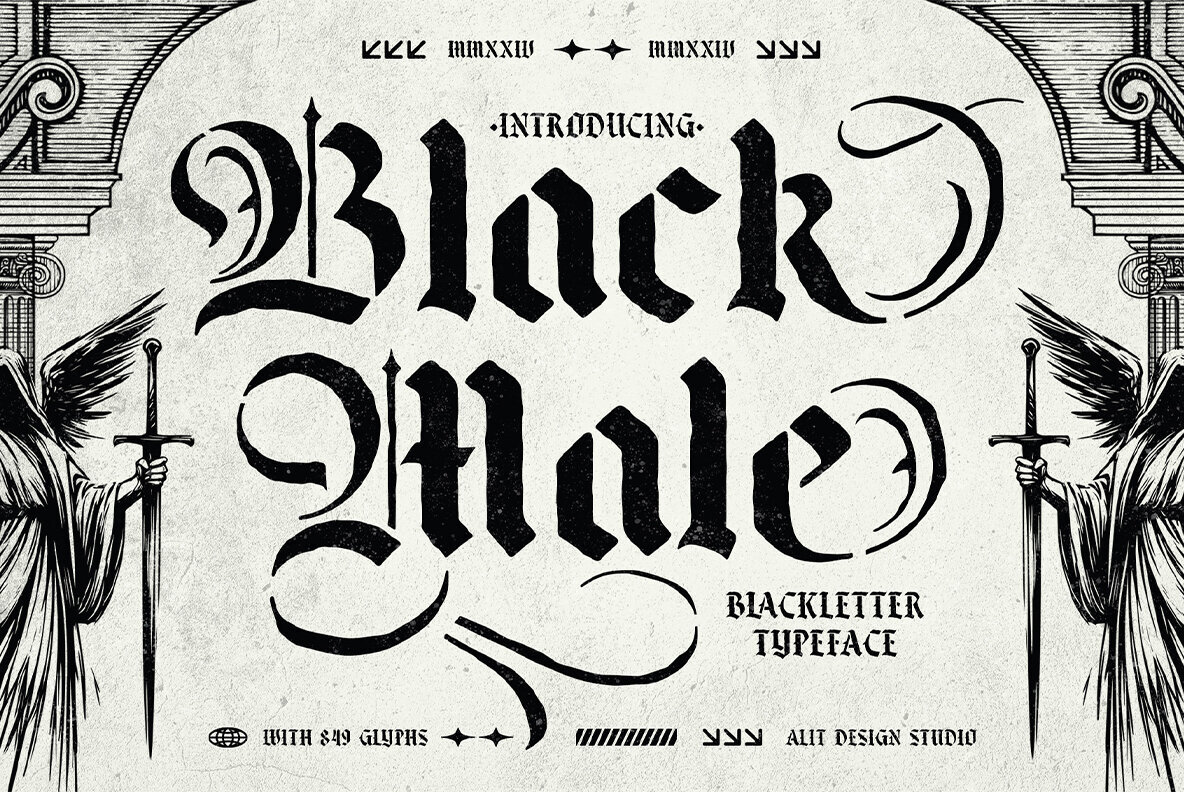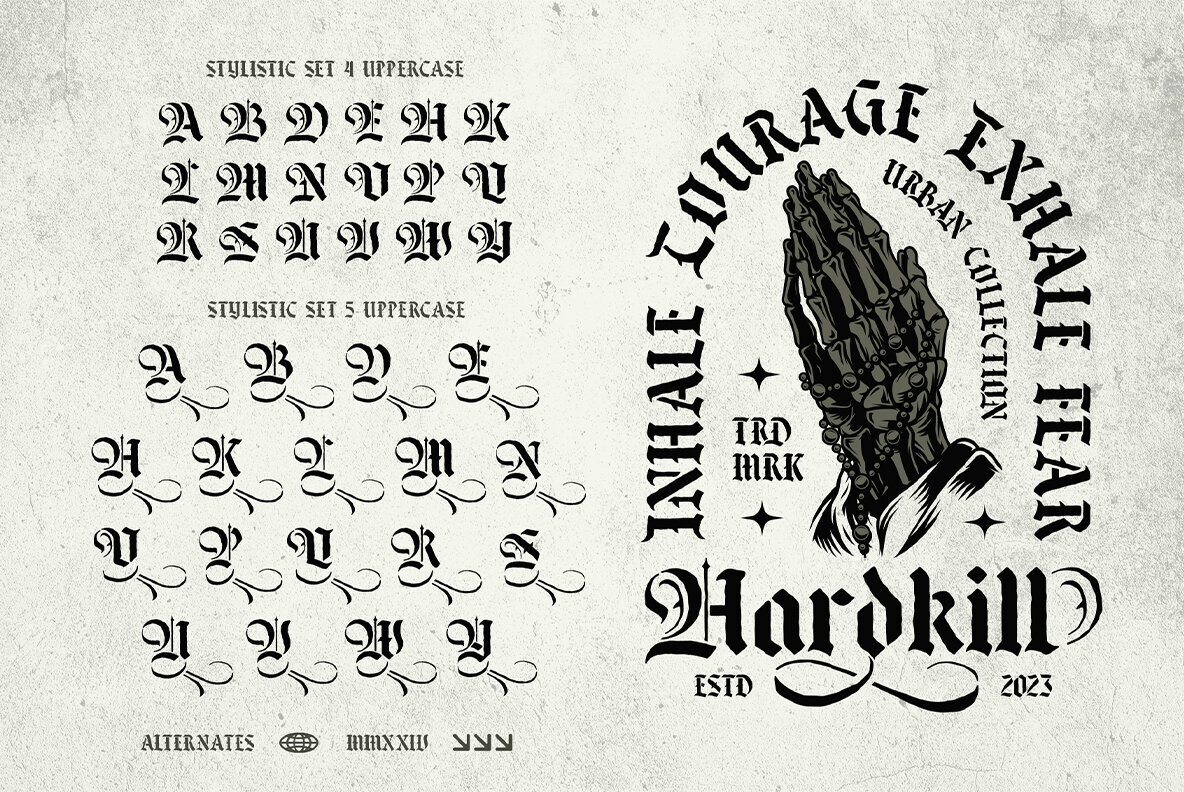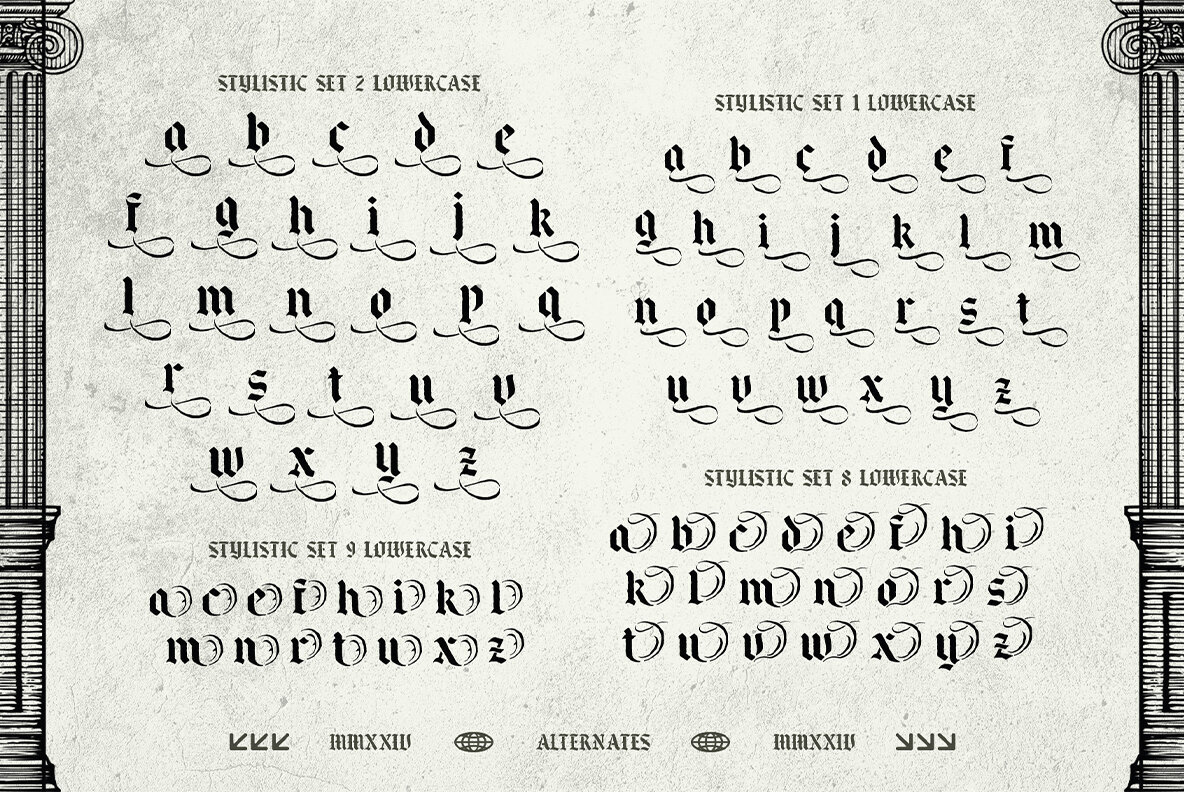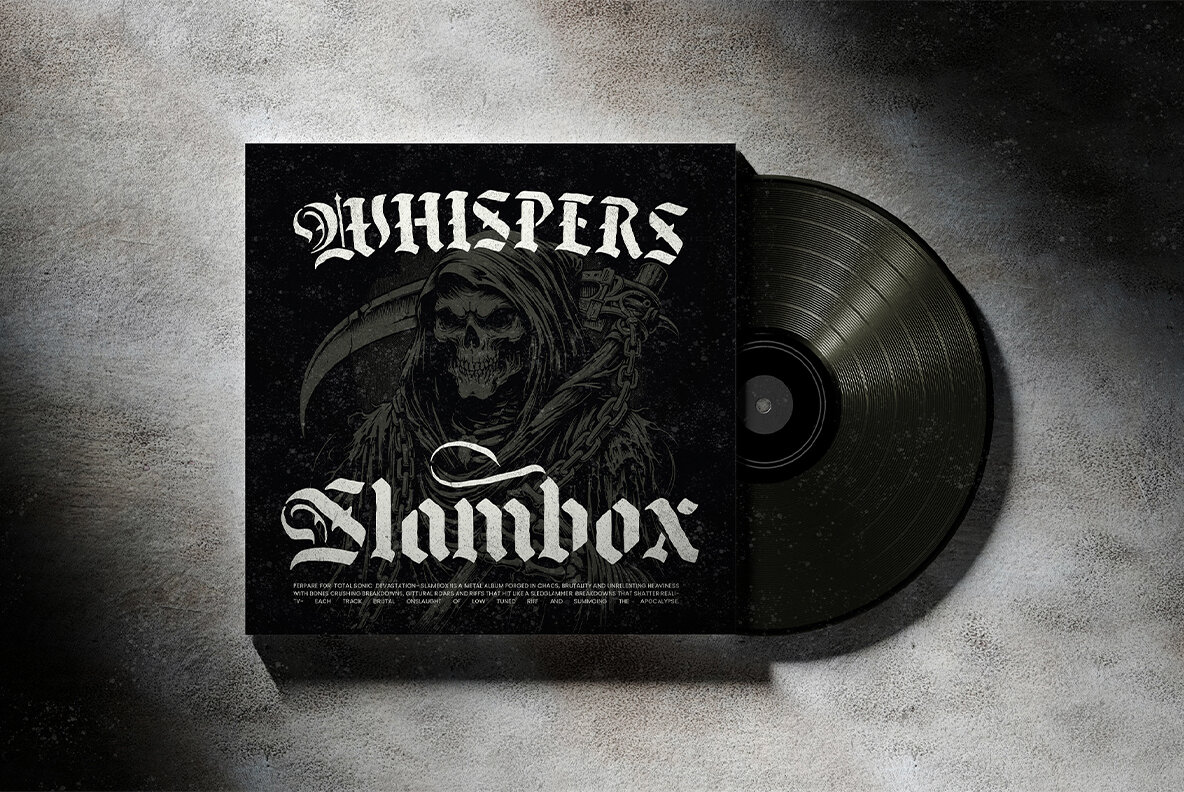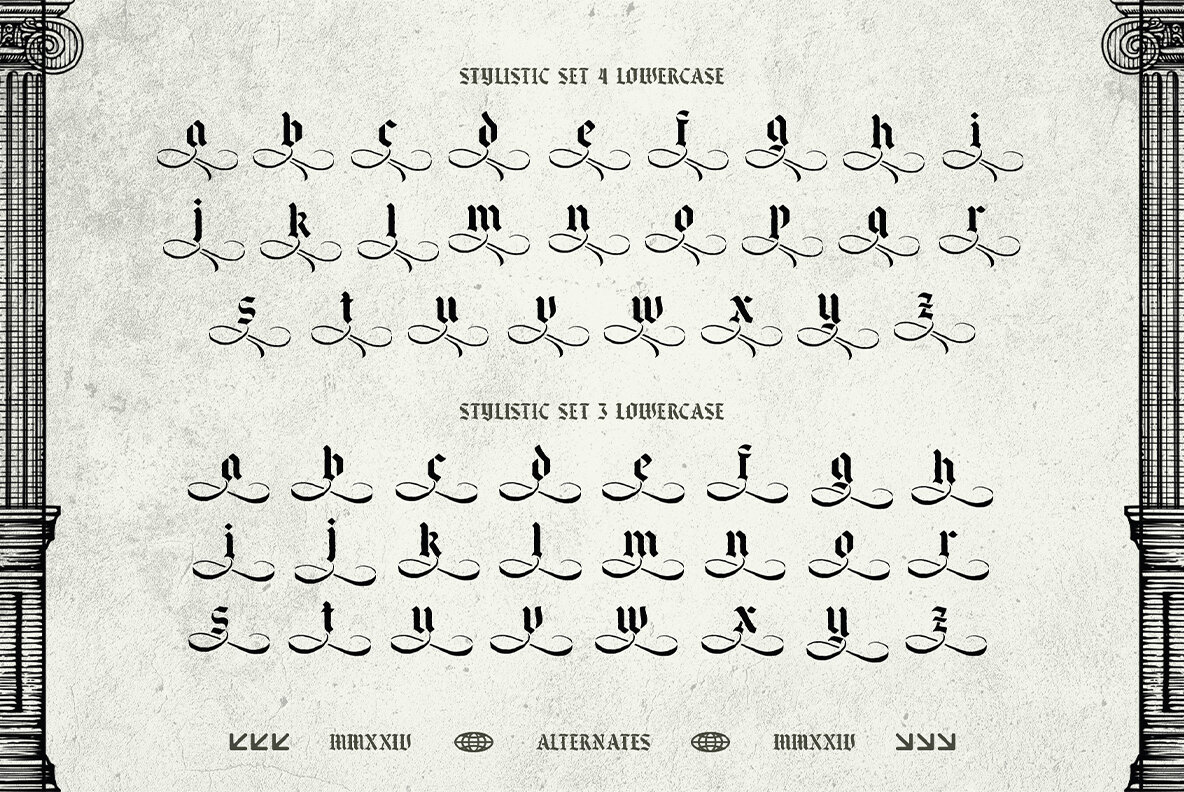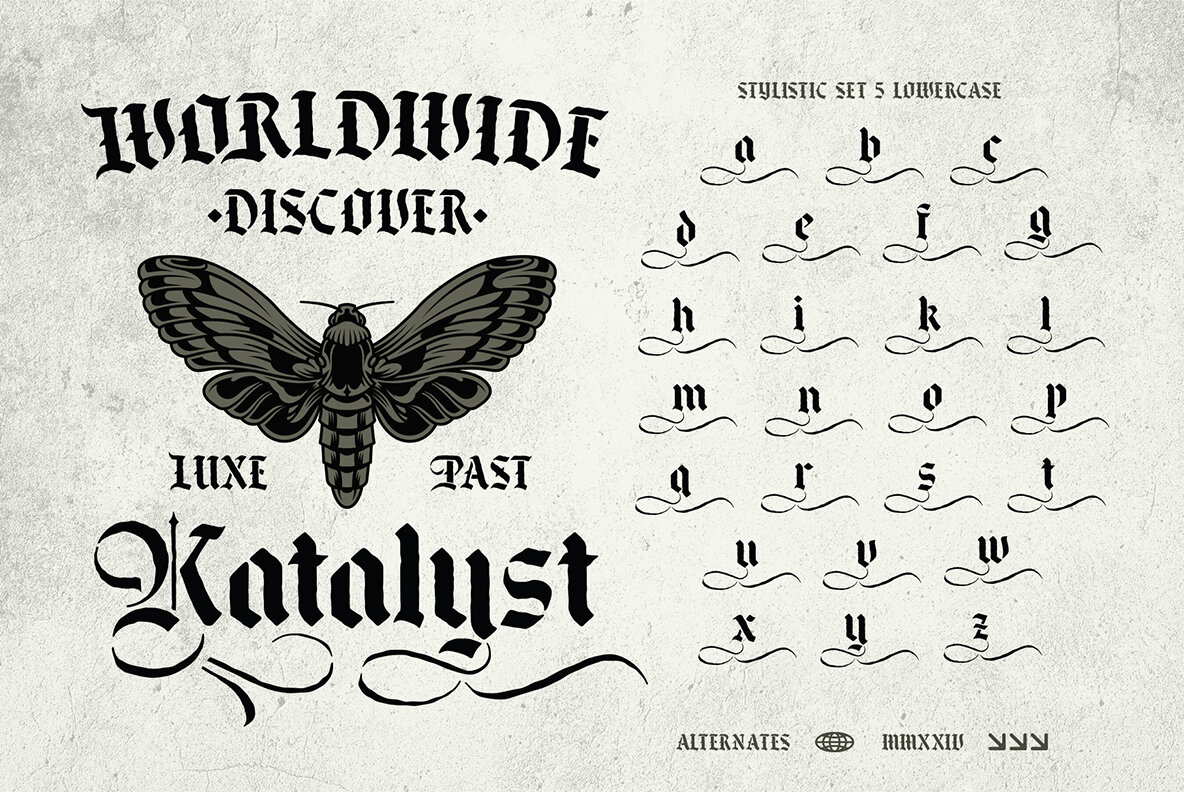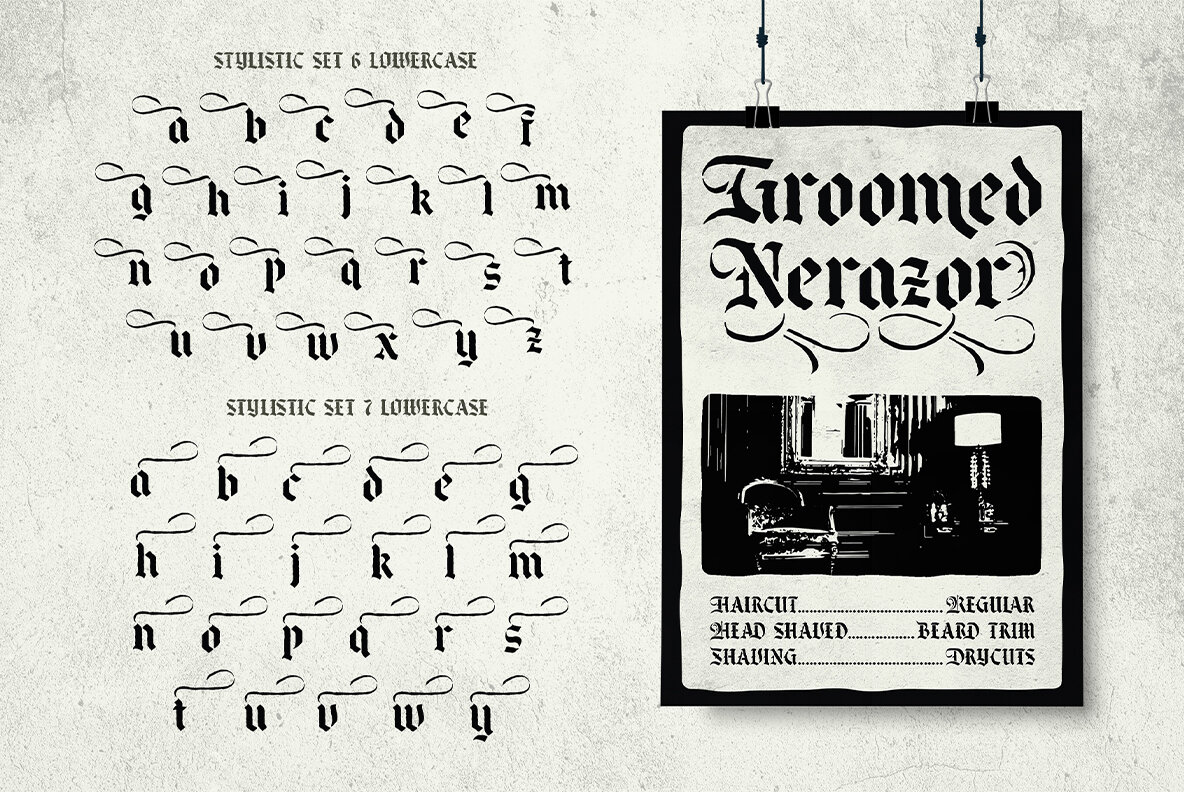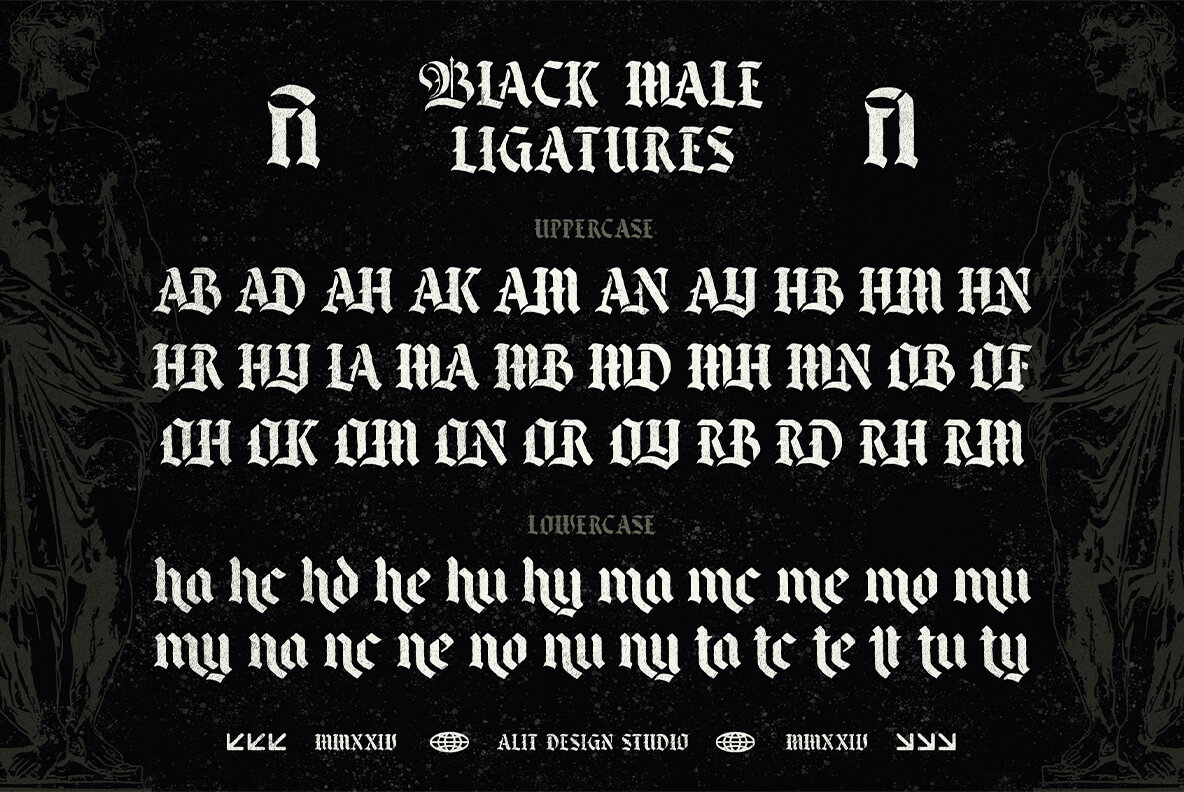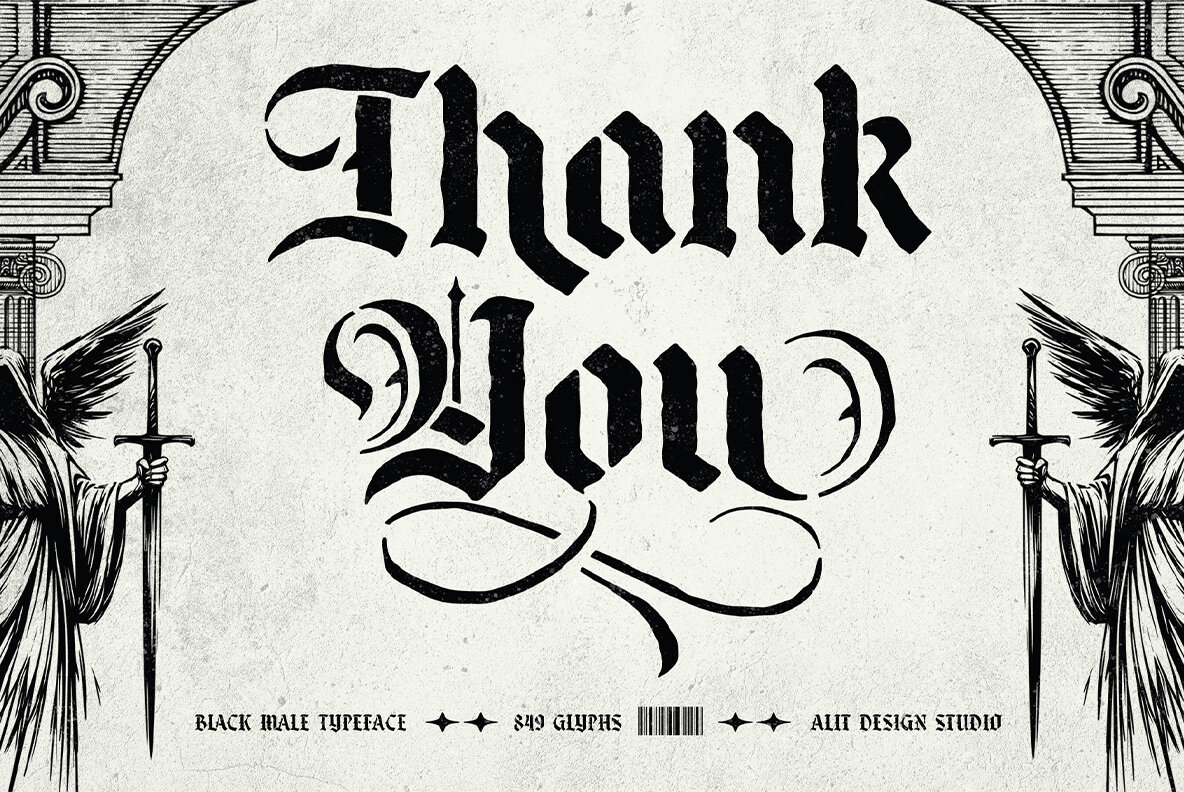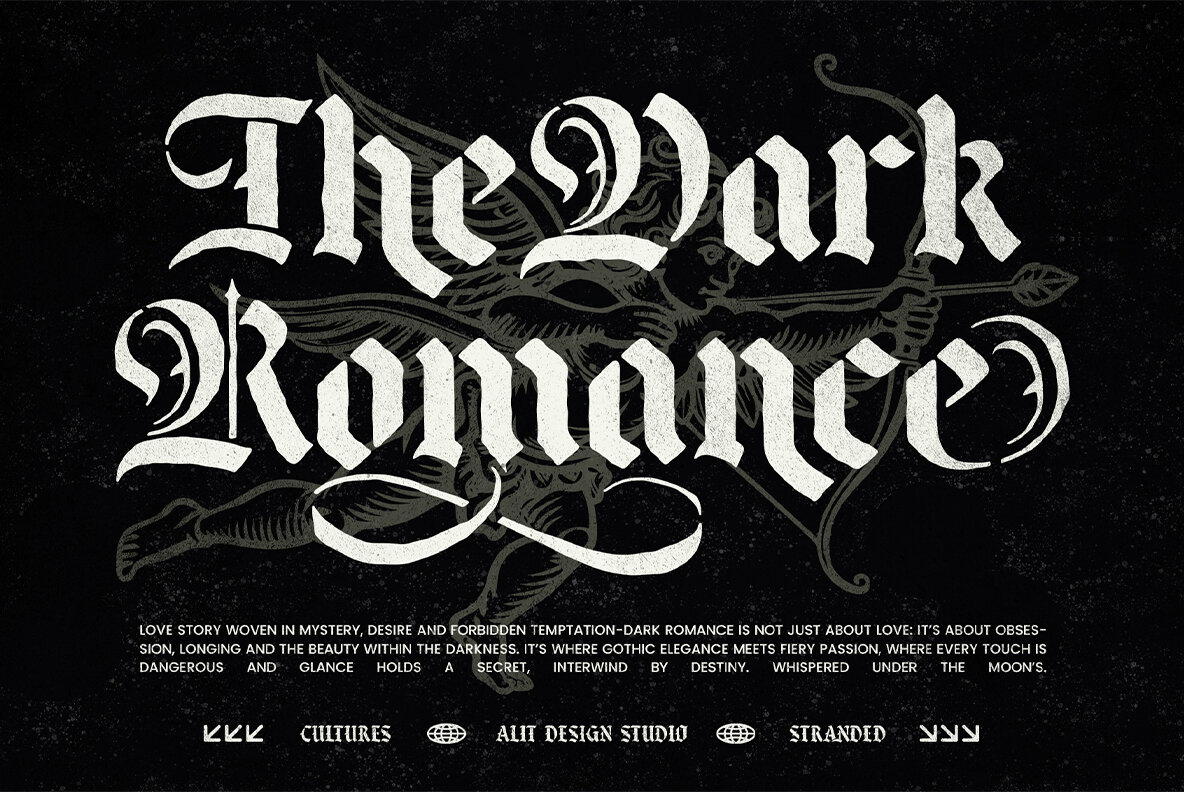
Balck Male Font
Black Male Regular
Balck Male: Blackletter Stencil Typeface
Balck Male is a masterfully crafted blackletter stencil typeface, perfectly balancing the elegance of historical calligraphy with industrial precision. Featuring a rich character set of 849 glyphs, it offers extensive typographic options, including alternates, swashes, and ligatures for exceptional design versatility. Each stencil cut in this font is carefully engineered to ensure structural integrity, making it ideal for screen printing, engraving, laser cutting, vinyl lettering, and more. Whether for branding, posters, apparel, tattoos, or medieval-inspired artwork, Balck Male provides a timeless yet edgy visual impact.
- Blackletter Stencil Design – A modern take on classic Gothic typography, enhanced with stencil-ready elements.
- 849 Glyphs – Comprehensive character set covering uppercase, lowercase, numerals, punctuation, and special symbols.
- Alternates & Ligatures – A variety of stylistic alternates and ligatures for unique text customization.
- Swashes & Decorative Elements – Artistic flourishes for enhanced elegance.
- Precision Stencil Cuts – Designed for seamless cutting without structural issues.
- Versatile Usage – Perfect for branding, packaging, posters, apparel, tattoos, signage, and gothic-themed visuals.
- Multilingual Support – Full diacritic compatibility for multiple languages.
Balck Male is perfect for gothic and vintage designs, streetwear and apparel branding, tattoo and artistic designs, signage, and cut-out applications. Its precision design is suited for metal and wood engraving, as well as laser applications.
For those seeking a typeface commanding attention and blending heritage with modernity, Balck Male is an ideal choice. Its robust letterforms and thoughtful stencil cuts ensure strong visual appeal across all mediums. Embrace the power of Gothic stencil typography with Balck Male.